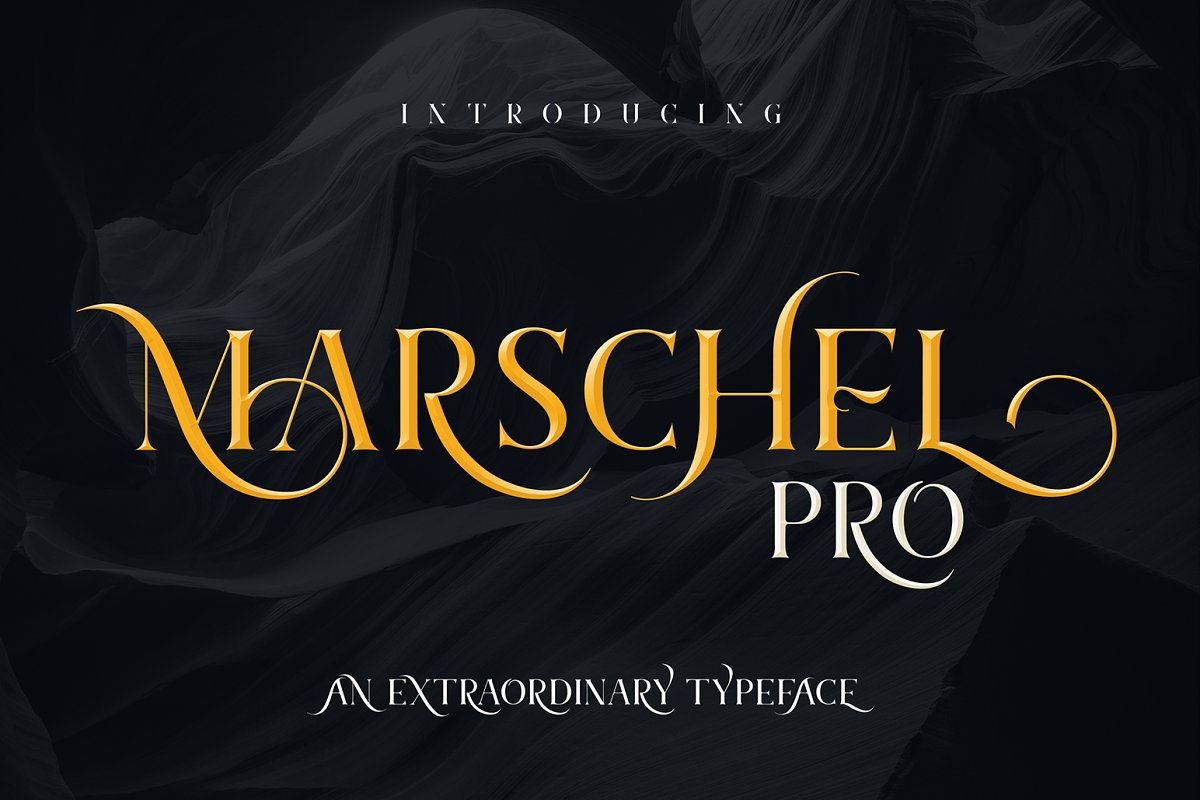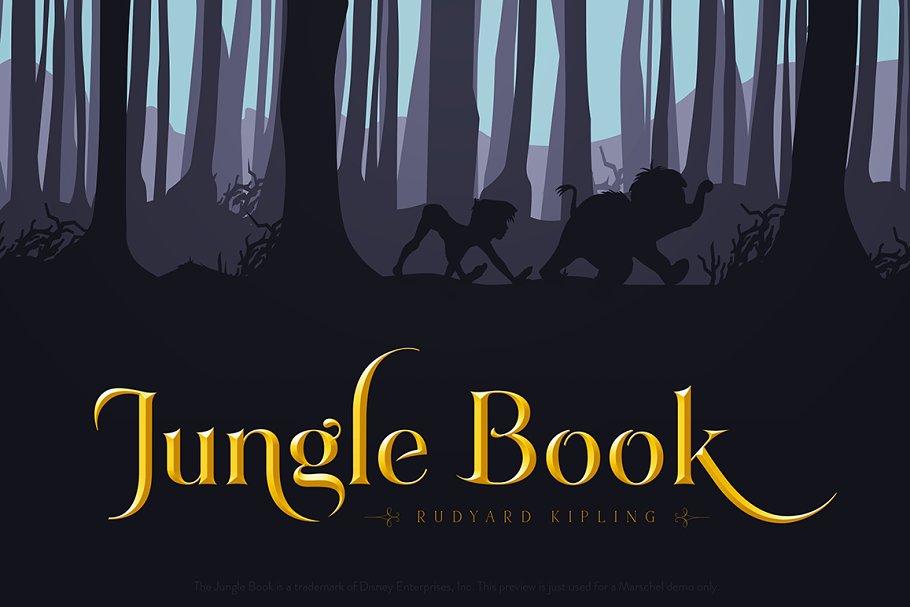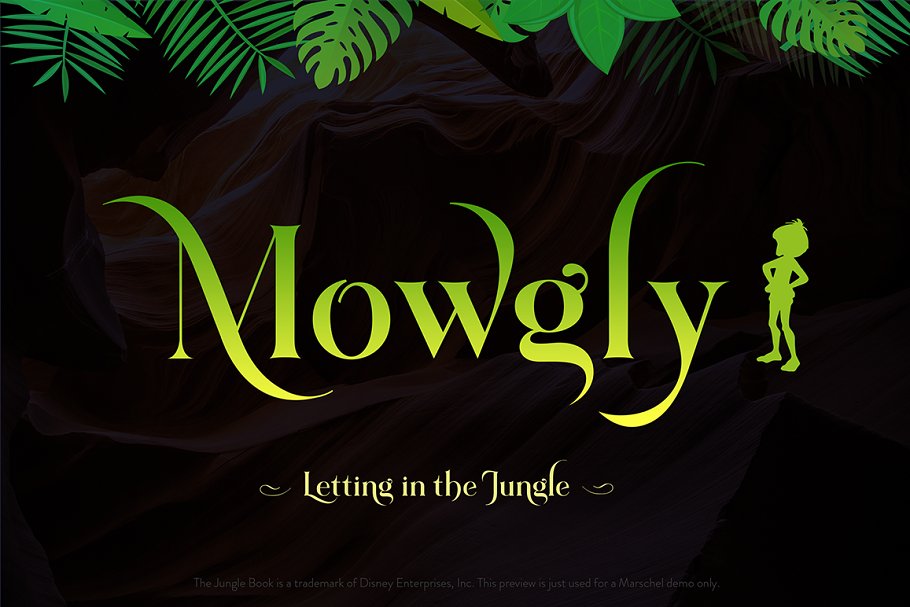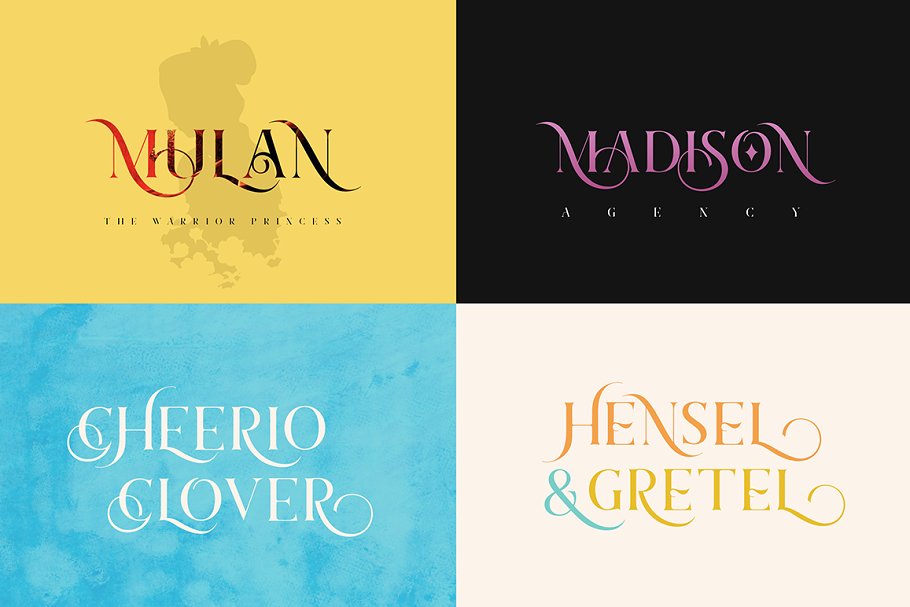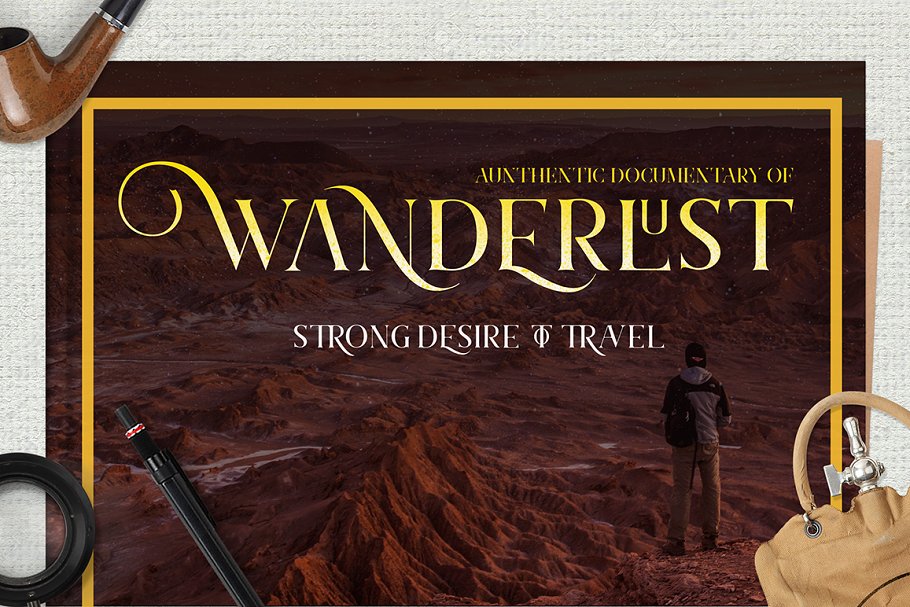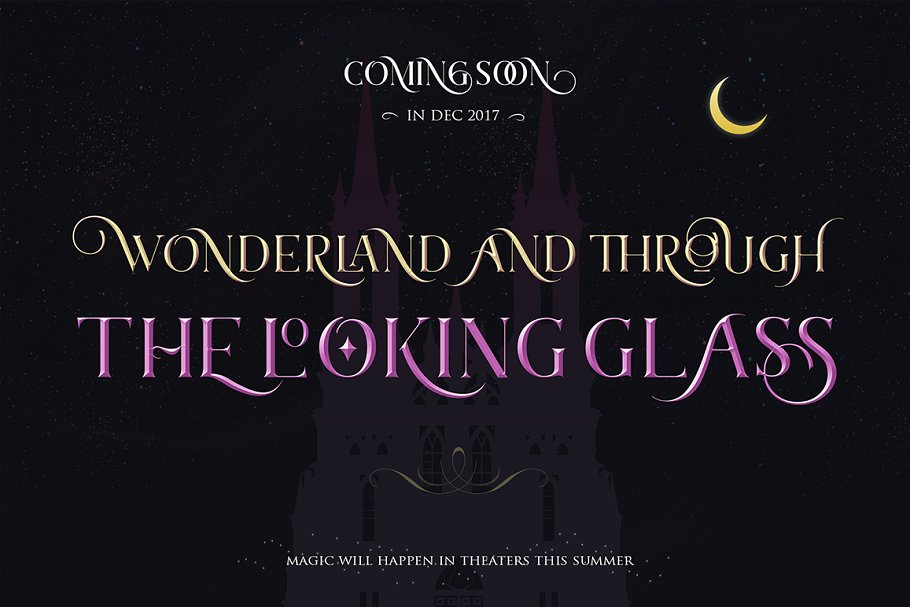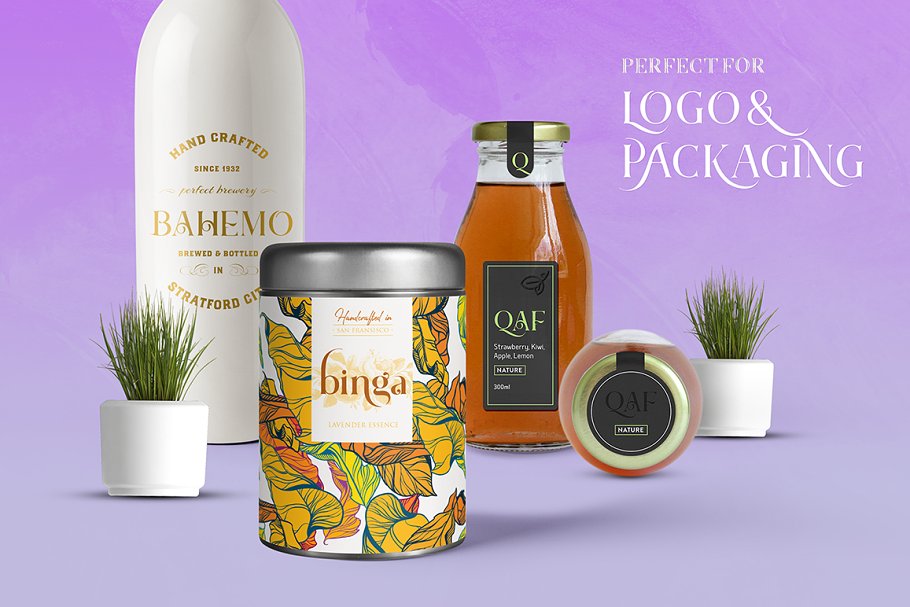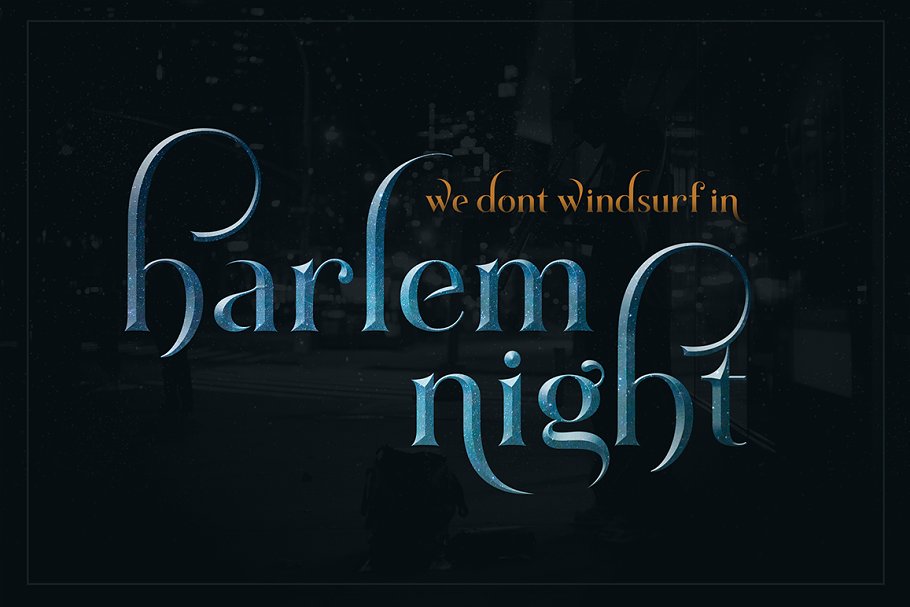
MARSCHEL PRO–Marschel Pro is an upgrade from the Marschel Basic, with Pro version you will get the packs of amazing stylistic sets characters that will improve your designs and make it feel unique, It’s consist of more than 400+ glyphs including special characters, unique ligatures and allow you to mix and match so much pairs of letters, It’s perfect for weddings, headline, movie title, logos, branding, invitations, quotes, social media, websites, magazine and so much more
The typeface offers numerous combination possibilities between the basic glyph set and stylistic sets, The stylistic sets are alternate alphabets that you can access by using OpenType savvy programs such as Adobe Illustrator, Adobe Photoshop CC, CorelDraw and Adobe InDesign